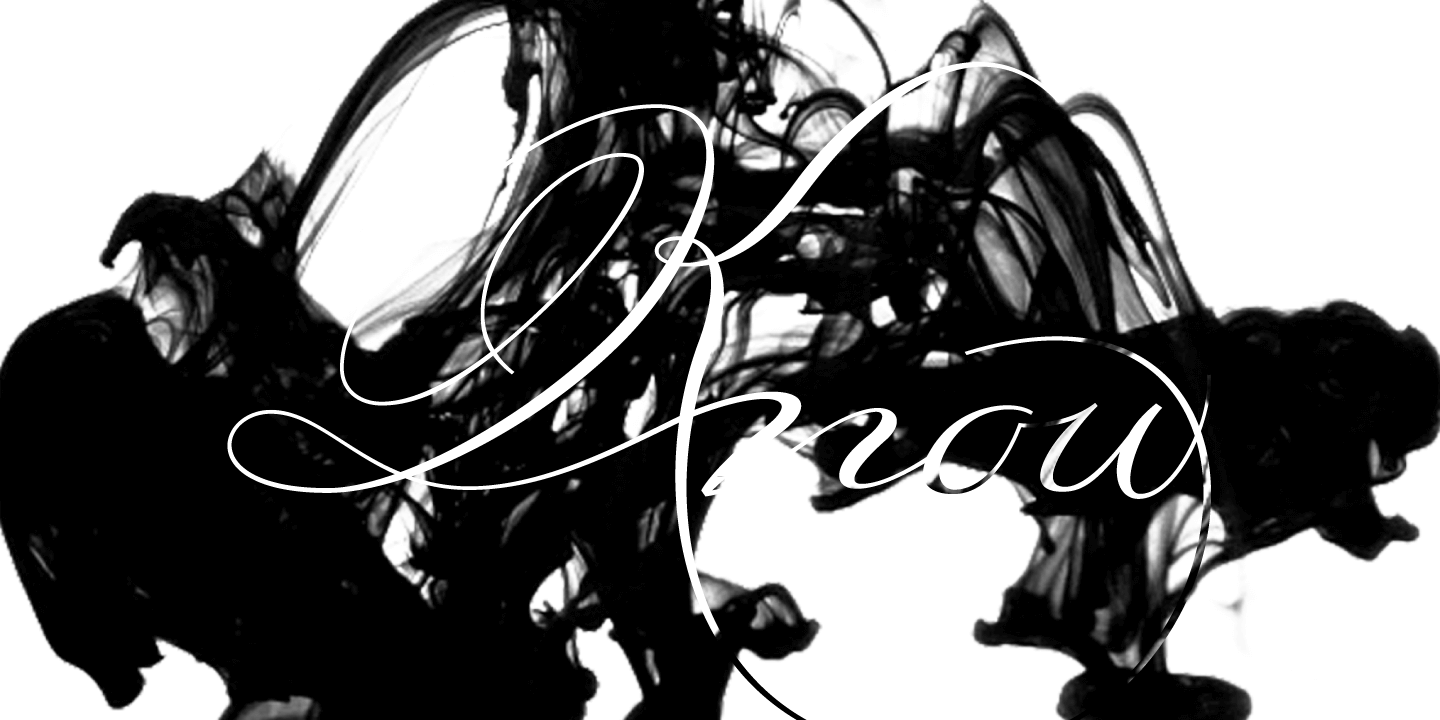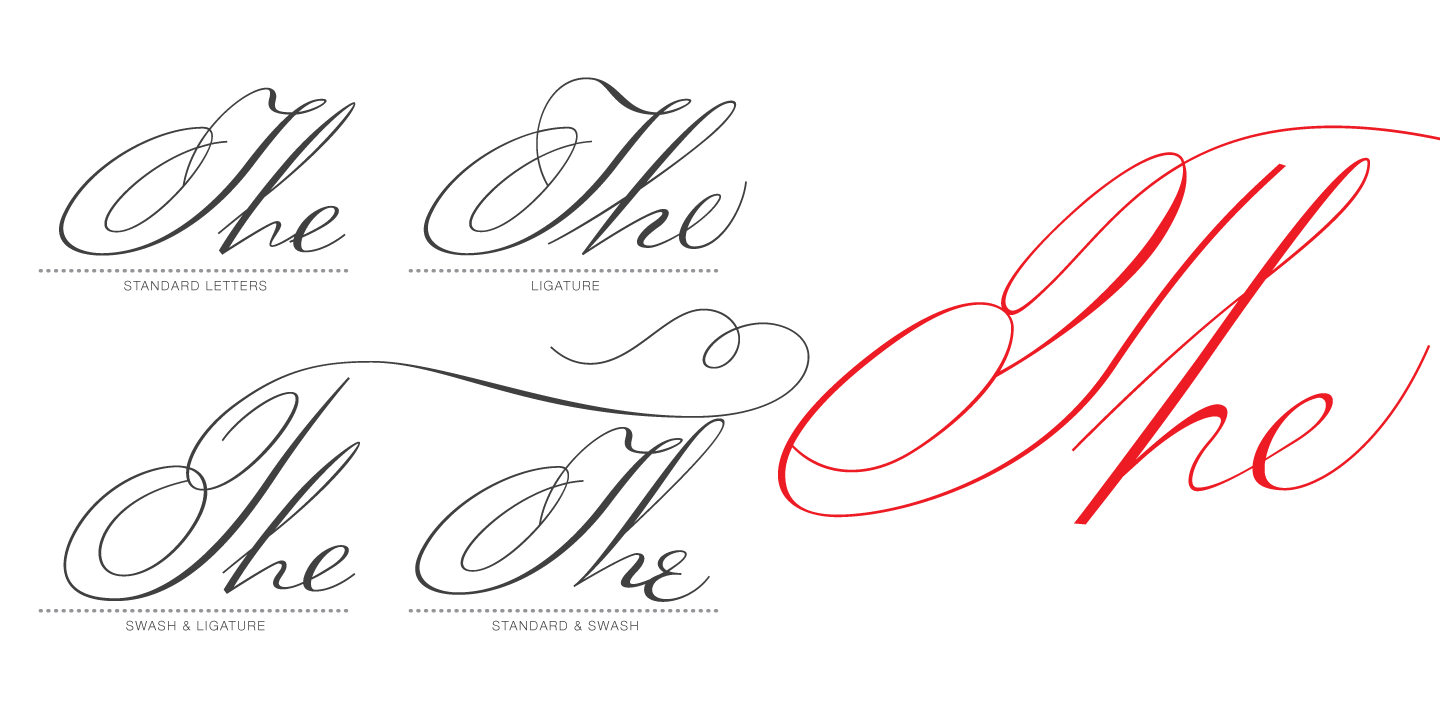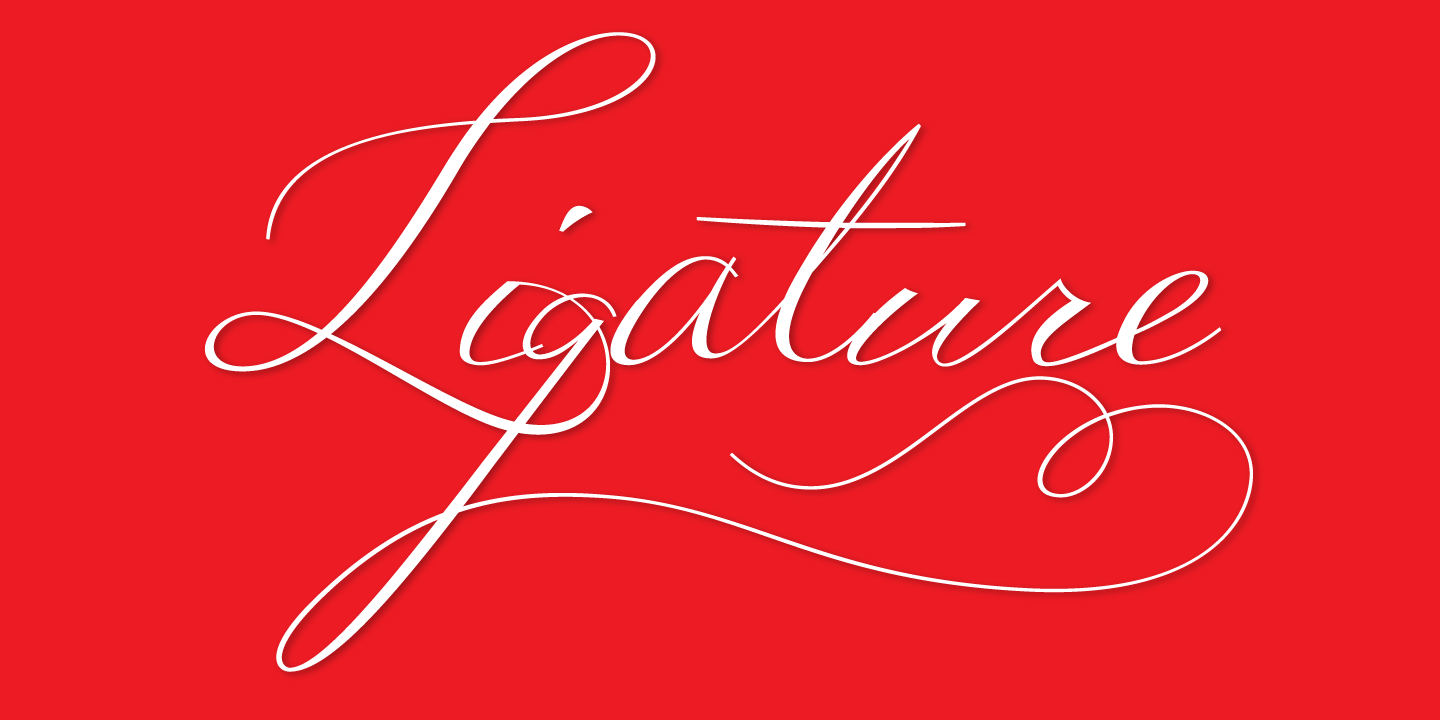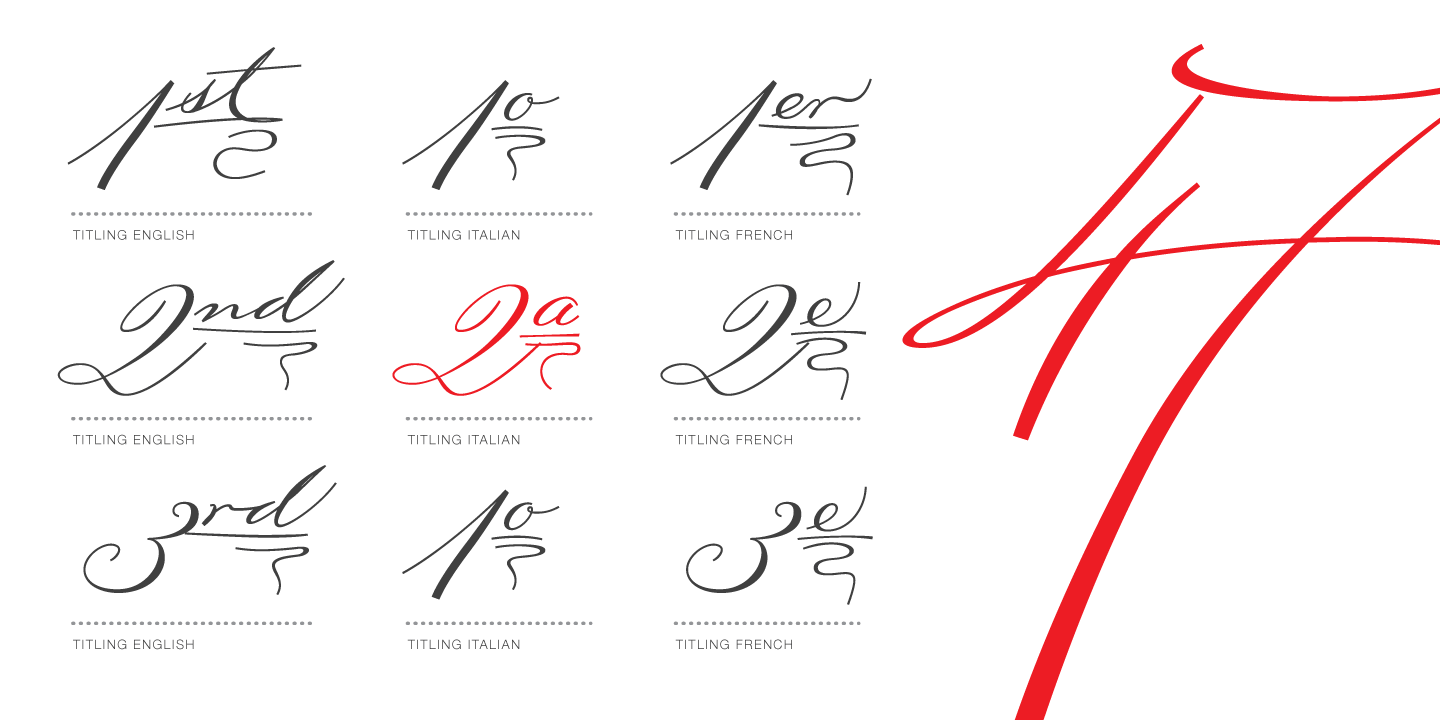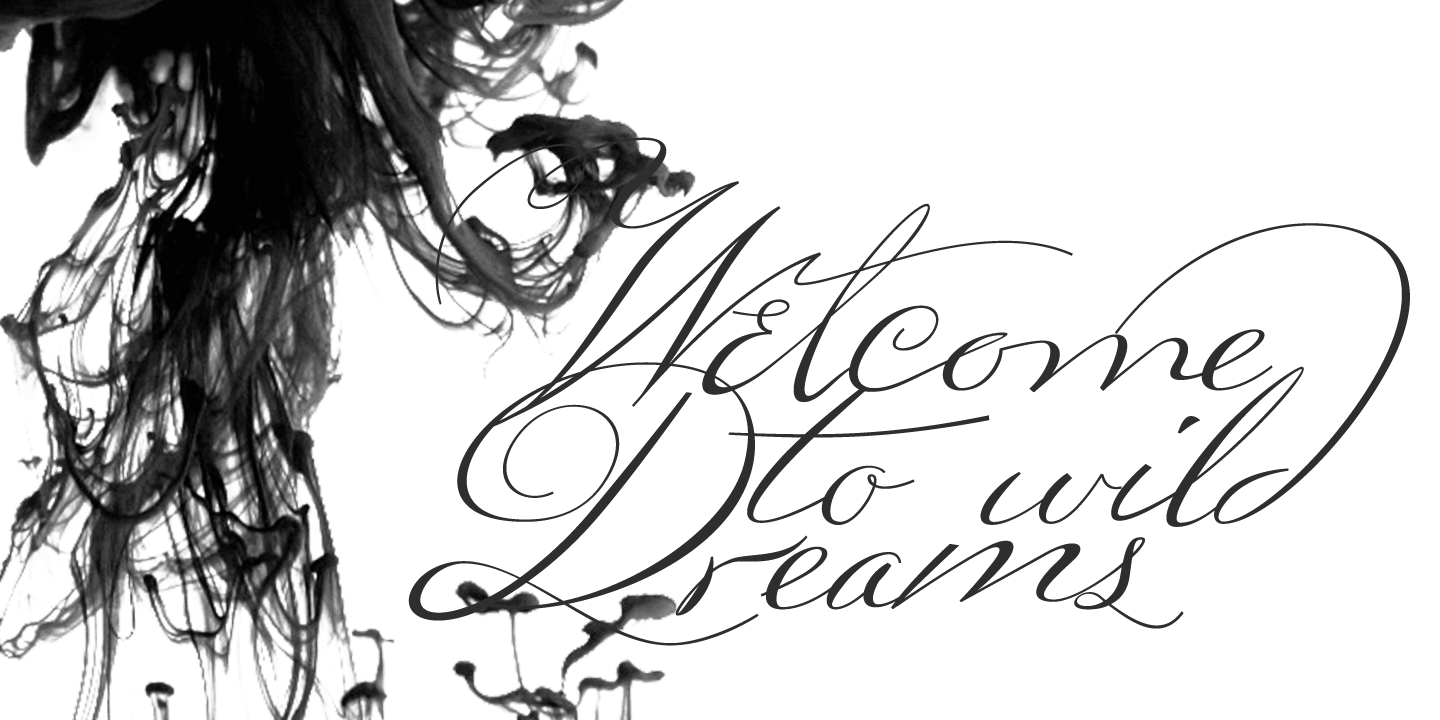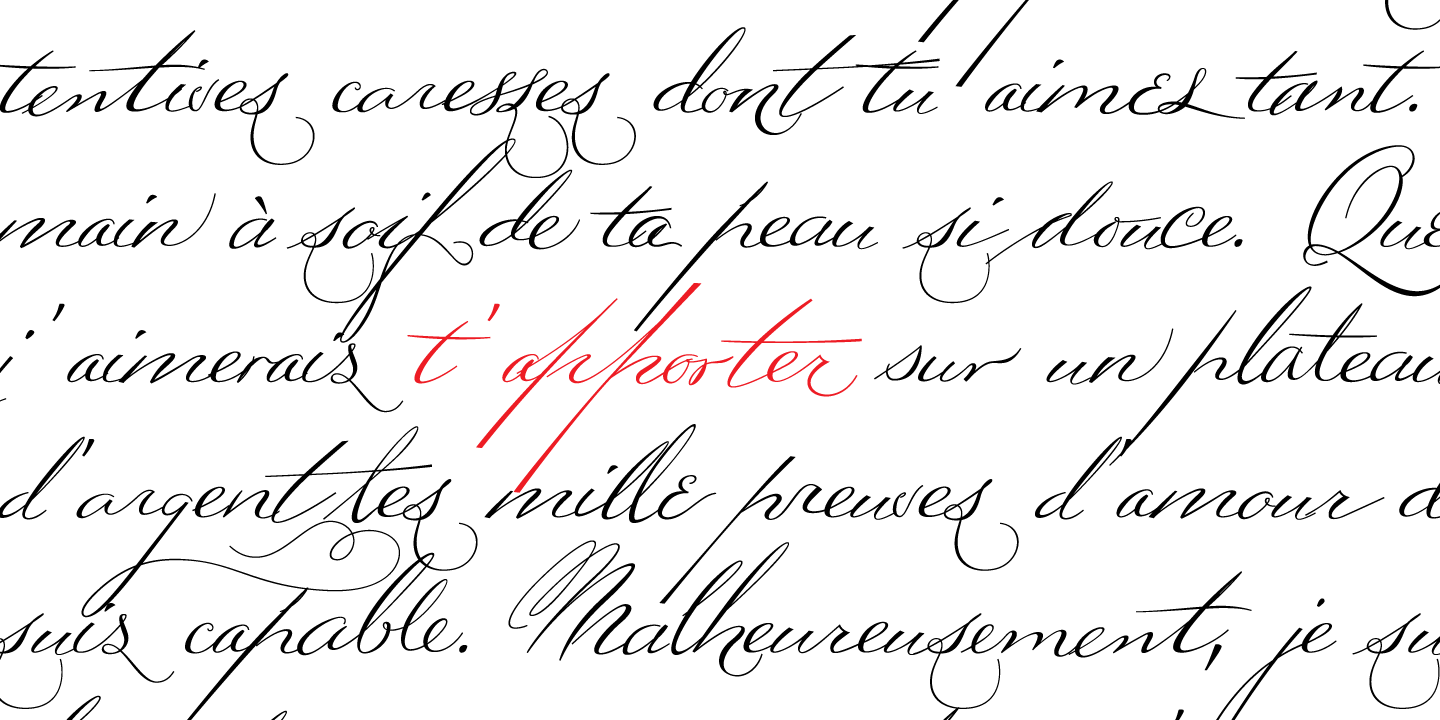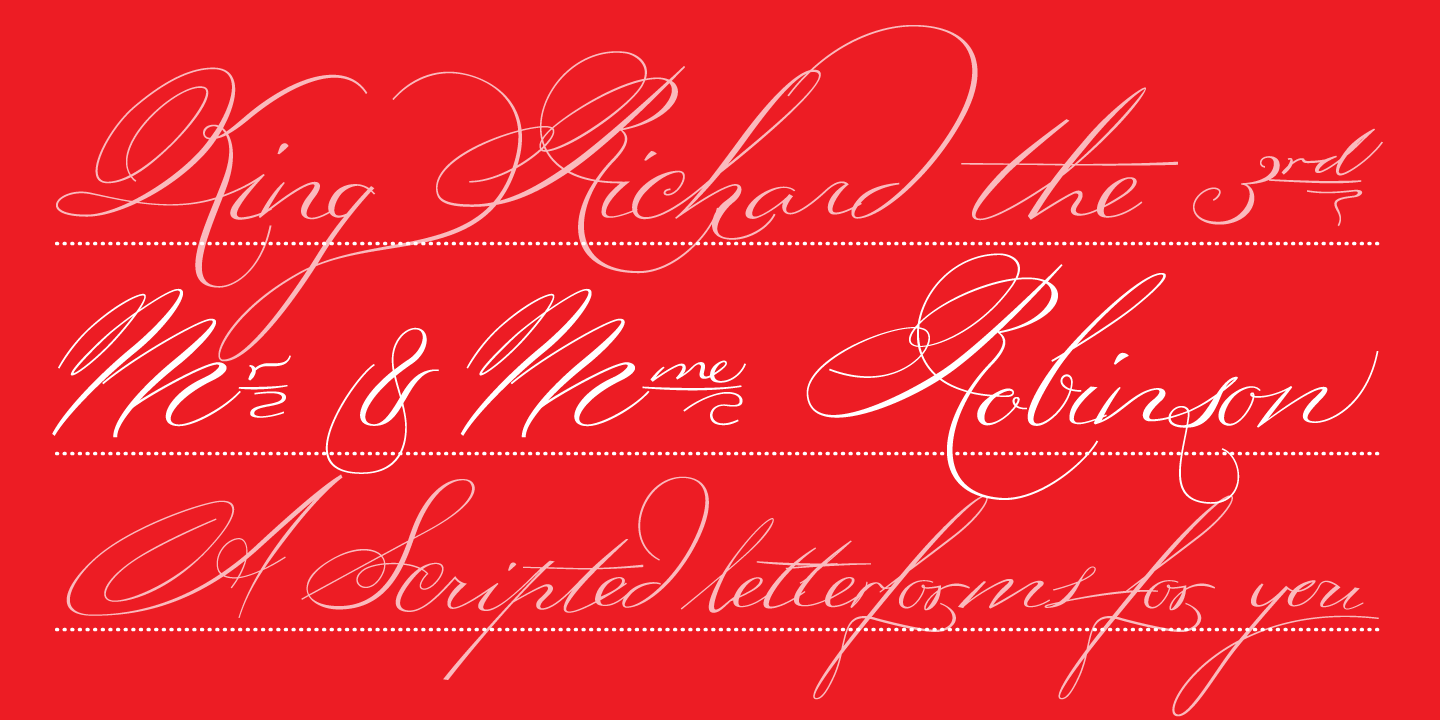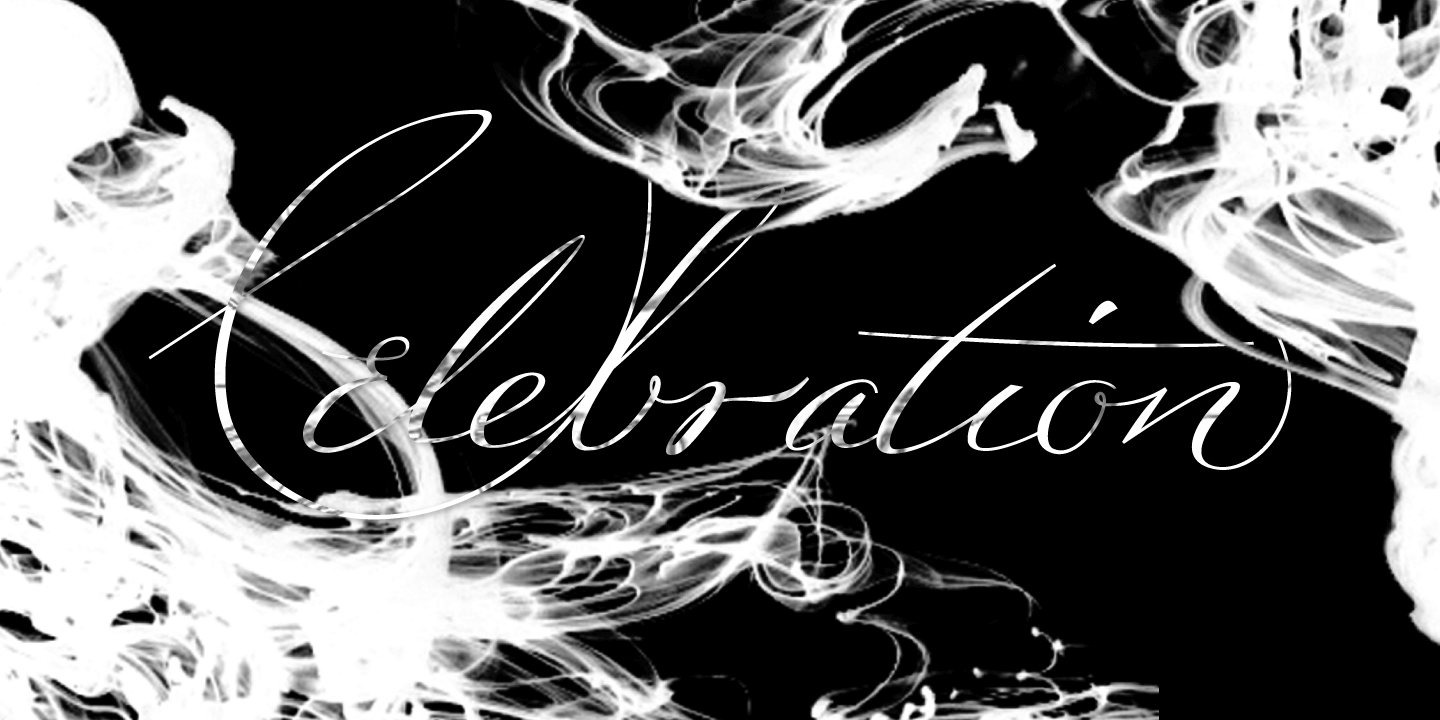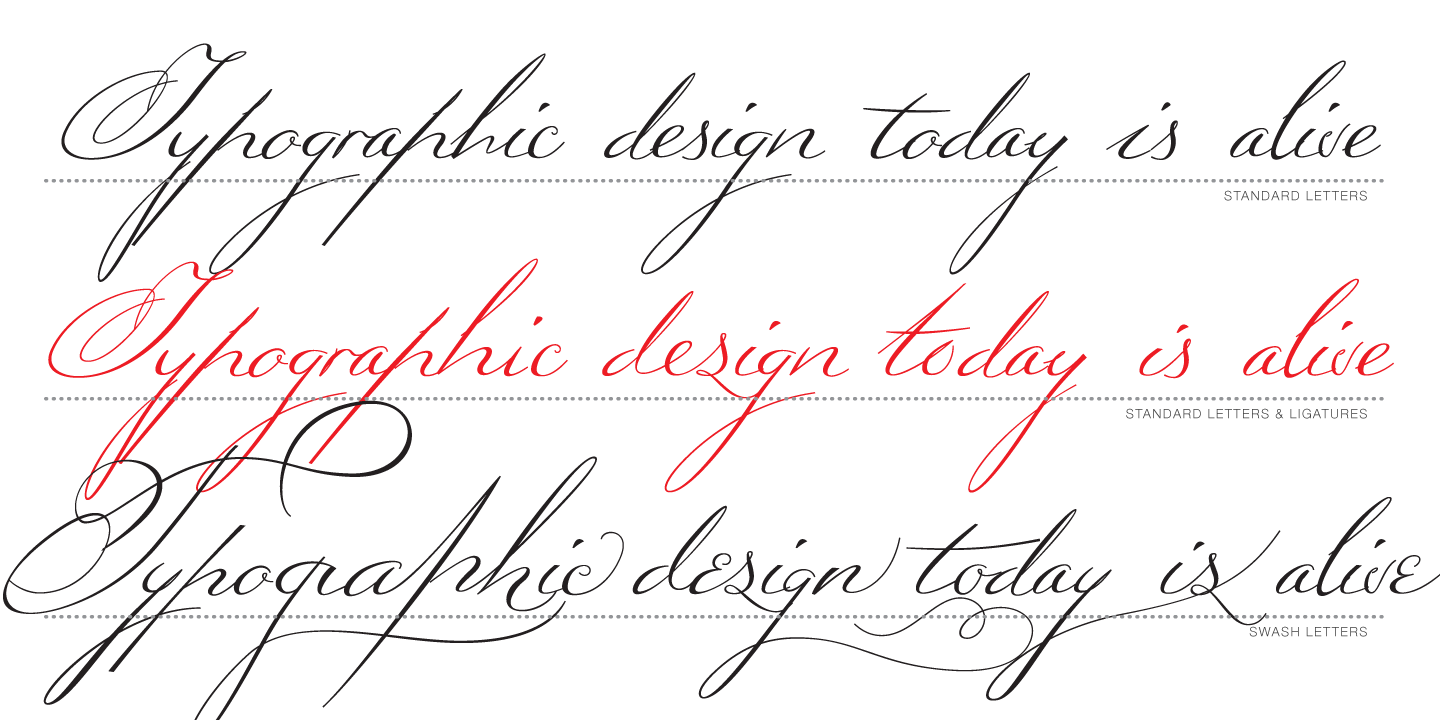
Ignorance
Ignorance is a script typeface that mimics traditional handwriting found in America in the 19th century. Full of vitality and personality, this typeface includes a wide range of Opentype ligatures, alternates and swash characters that allow multiple choices…